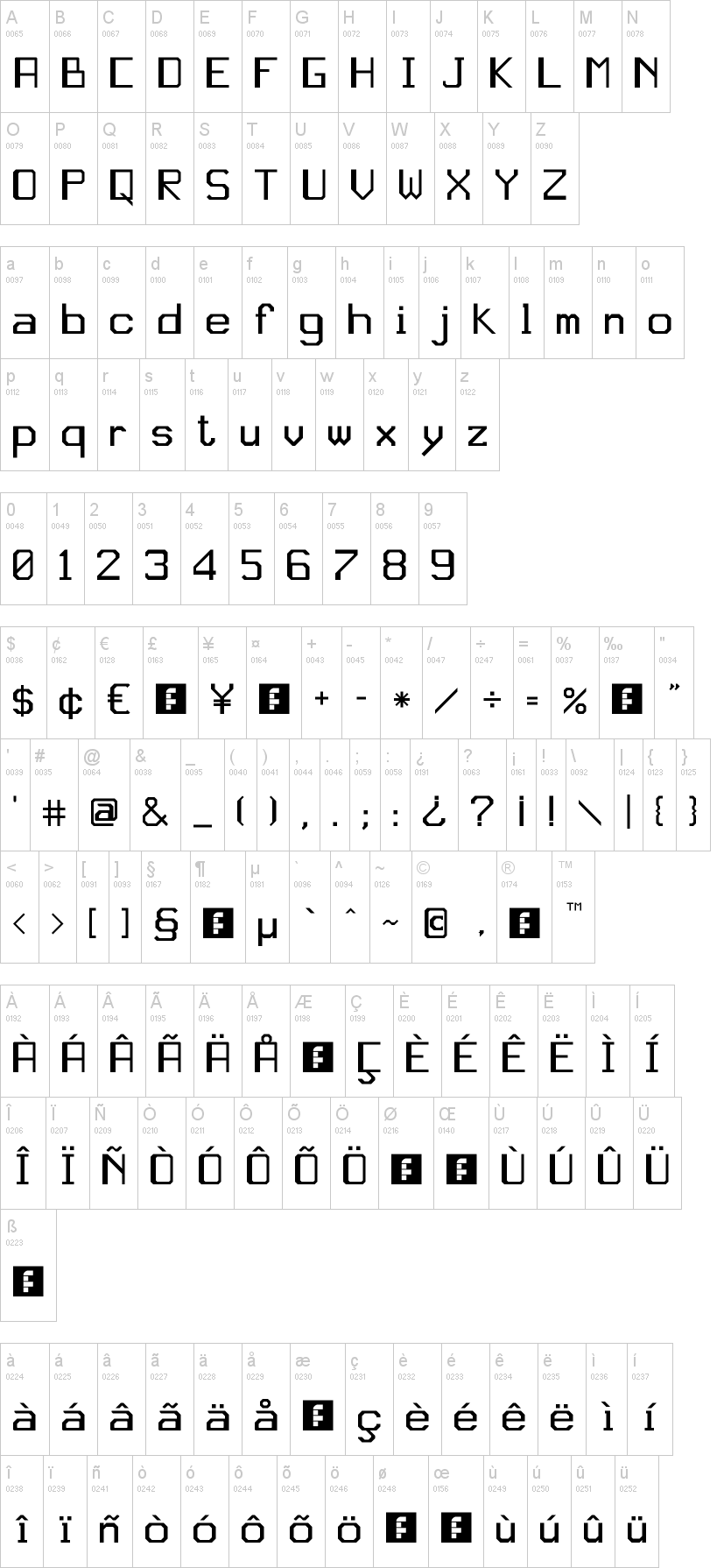
Note of the authorJD Gina has more than 180 glyphs, includeind uppercases, lowercases, accents and a wide series of symbols.
It's a general purpose font.